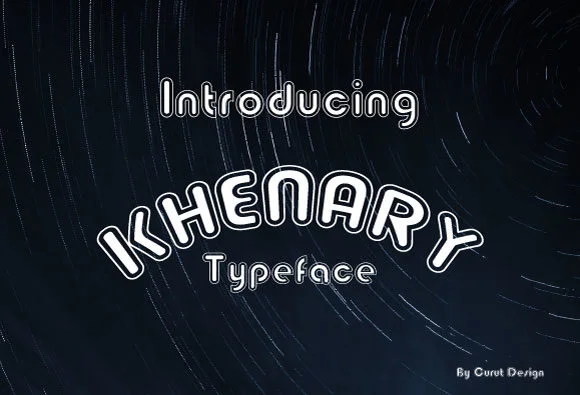
Khenary Font
Khenary Font is perfect for a wide range of design projects including modern branding, stylish logos, magazine headlines, advertising campaigns, product packaging, website headers, business cards, and dynamic social media graphics. Its contemporary aesthetic makes it an exceptional choice for projects that demand visual sophistication and professional appeal.
What makes Khenary Font exciting is its perfect balance between modernity and functionality. The font showcases meticulously crafted characters that deliver powerful visual impact while ensuring optimal readability across various applications. Its distinctive design elements create a memorable impression that helps brands stand out in competitive markets.
Khenary Font comes in multiple font families including Regular, Bold, Light, SemiBold, Italic, and various weight variations. These diverse options provide designers with comprehensive flexibility to establish clear typographic hierarchies and create cohesive design systems across all brand touchpoints.